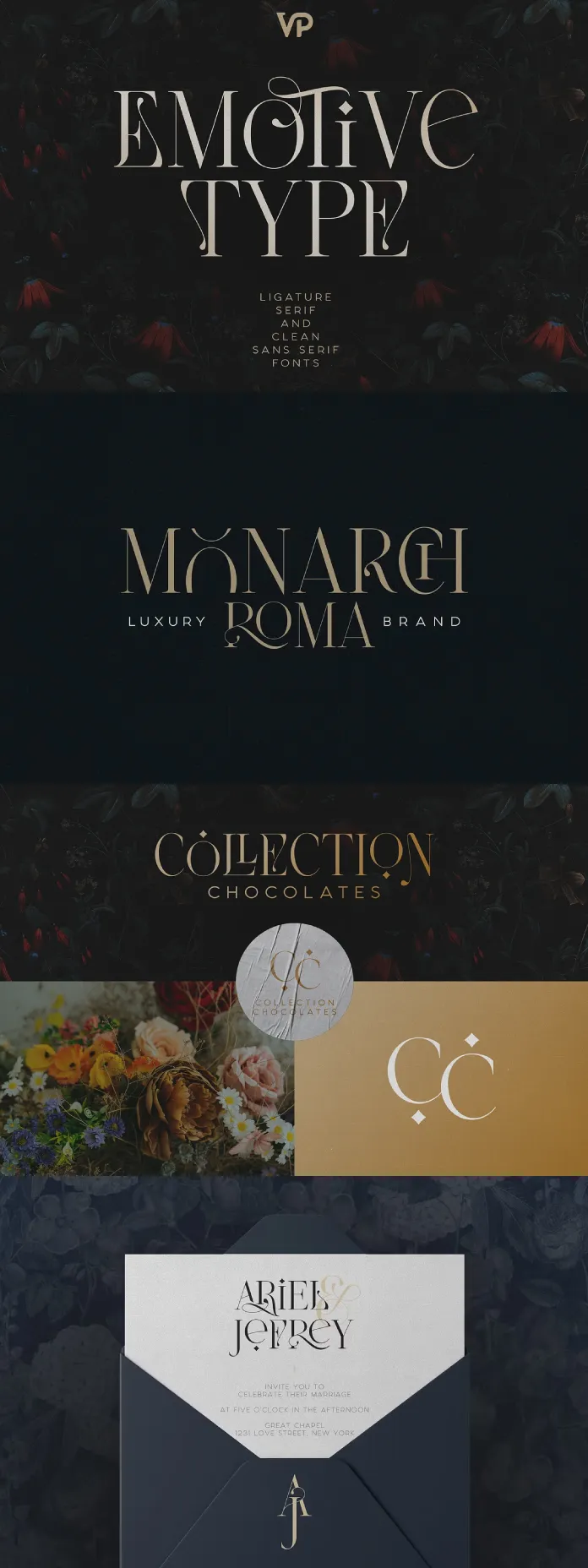
VP Fonts’ Emotive Type is a font duo that embodies both sophistication and versatility. This elegant serif and sans-serif combination offers a unique blend of classic design elements and modern functionality, making it a go-to choice for designers looking to elevate their branding, packaging, and editorial projects.
The Serif: Elegance Meets Versatility
At the heart of Emotive Type is a meticulously crafted serif font that exudes a sense of luxury and refinement. Its clean lines and attention to detail make it suitable for a wide range of high-end applications. The font’s emphasis on elegance is reinforced by its rich set of alternate and ligature glyphs, which enable designers to introduce dynamic variations into their typographic compositions. This flexibility allows for the creation of bespoke typographic solutions that can reflect the unique identity of any project.
The serif’s expressive forms are ideal for conveying a sense of grandeur and artistry, positioning it as a strong contender for luxury branding and editorial work. Whether applied to headings in a magazine spread or a logotype for a premium brand, Emotive Type’s serif ensures an air of distinction and professionalism.
The Sans-Serif: Clean and Contemporary
Complementing the serif is a set of six clean sans-serif fonts, offering a contemporary contrast to the more traditional elegance of the serif. The sans-serif’s simplicity makes it highly adaptable for a range of design contexts, from packaging to web interfaces, where readability and clarity are paramount. Together, the serif and sans-serif form a cohesive duo that provides designers with a full typographic toolkit for creating multi-faceted designs that balance both formality and modernity.
Global Reach with Multilingual Support
One of the standout features of Emotive Type is its support for 87 languages, making it a truly global typeface. In an increasingly connected world, the ability to communicate across language barriers is crucial for brands and publications that cater to international audiences. Emotive Type’s extensive language support ensures that its refined aesthetic can be applied in diverse cultural and linguistic contexts without sacrificing visual integrity.
Unlocking Creative Potential: Alternate Glyphs and Ligatures
This intuitive access to typographic variations empowers designers to explore creative solutions that would otherwise be difficult to achieve with a standard font set.
Ideal Applications: From Branding to Editorial Design
Emotive Type’s combination of sophisticated serif and clean sans-serif fonts makes it particularly well-suited for high-end design projects. Its luxurious and expressive vibe lends itself to premium branding, where a refined and distinctive visual identity is paramount. The font’s versatility also makes it an excellent choice for editorial design, where the interplay between serif and sans-serif type can create dynamic layouts that guide the reader through the content.
Packaging design also benefits from Emotive Type’s ability to blend tradition with modernity. The serif can provide a sense of heritage and craftsmanship, while the sans-serif adds a touch of contemporary minimalism, resulting in designs that feel both timeless and current.
A Refined Tool for Discerning Designers
Emotive Type by VP Fonts is a fine example of typographic design, offering the flexibility and elegance required for luxury, branding, and editorial projects. Its thoughtful combination of serif and sans-serif styles, along with extensive language support and a wealth of typographic alternates, make it a versatile and powerful tool for designers seeking to create high-end, expressive typography. Whether you’re working on a global brand or a niche publication, Emotive Type’s balance of sophistication and practicality ensures that your design will leave a lasting impression.
For those who want to bring a sense of luxury, creativity, and international appeal to their projects, Emotive Type is an invaluable asset that deserves a place in any designer’s typographic repertoire.